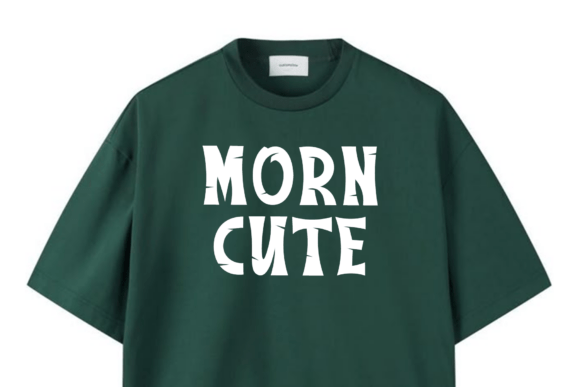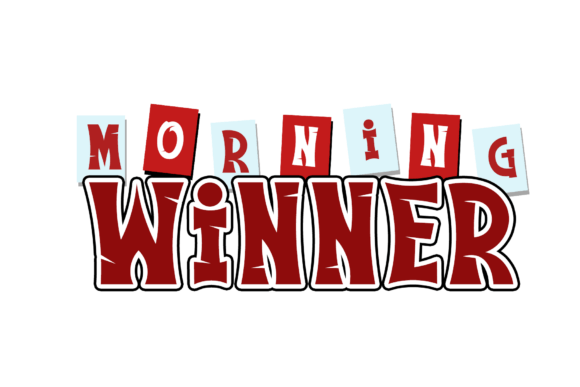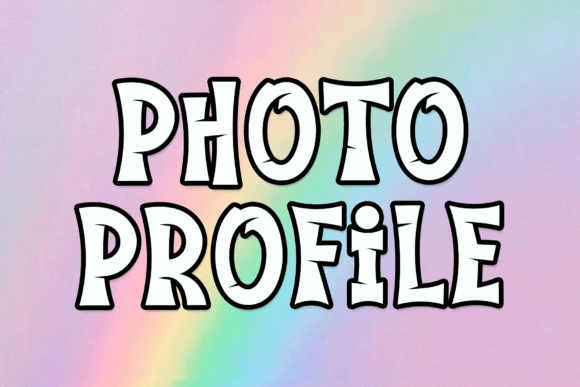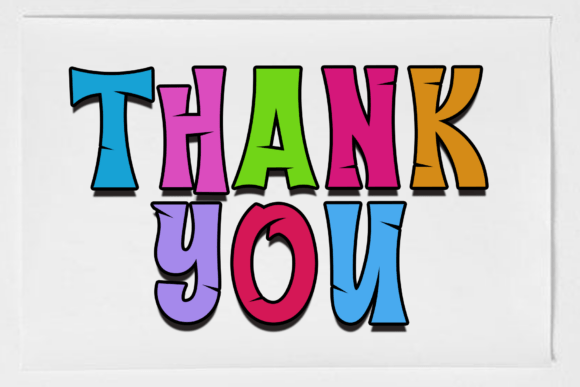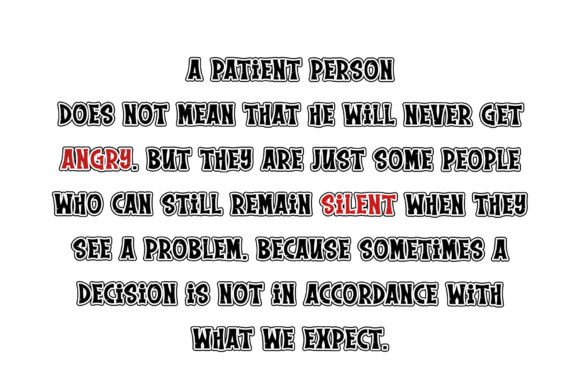
Introducing Animation Font: The Timeless Handwritten Font for Stunning Designs
Are you a designer or crafter looking for the perfect font to elevate your creative projects? Look no further than Animation Font, a lovely and timeless handwritten font that is sure to capture the attention of your audience. With its unique and beautiful touch, Animation Font is the ideal choice for creating eye-catching logos, branding, and quotes that will make your design come alive!
The Characteristics of Animation Font
Animation Font is a handwritten font that boasts a distinctive and charming style. Each letter has been carefully crafted to possess a unique and beautiful touch, making it perfect for designers who want to add a personal touch to their work. The font’s handwritten nature gives it a warm and inviting feel, making it perfect for a wide range of design applications, from logos and branding to quotes and social media graphics.
The Benefits of Using Animation Font
So, why choose Animation Font for your design projects? Here are just a few benefits of using this stunning font:
- Elegant and Sophisticated: Animation Font has an elegant and sophisticated feel that will elevate your designs and make them stand out from the crowd.
- Unique and Creative: With its unique and beautiful touch, Animation Font is perfect for designers who want to add a creative and personal touch to their work.
- Versatile: Animation Font is versatile and can be used for a wide range of design applications, from logos and branding to quotes and social media graphics.
- Easy to Read: Despite its decorative nature, Animation Font is easy to read and understand, making it perfect for use in body text and captions.
How to Use Animation Font in Your Designs
Using Animation Font in your designs is easy. Here are a few tips to get you started:
- Pair it with Other Fonts: Animation Font pairs well with other fonts, making it easy to create stunning font combinations that will elevate your designs.
- Experiment with Colors: Animation Font looks great in a variety of colors, so don’t be afraid to experiment and find the perfect color scheme for your design.
- Use it for Headings and Titles: Animation Font is perfect for use in headings and titles, where its decorative nature can really shine.
Why Designers and Crafters Love Animation Font
Designers and crafters love Animation Font for a variety of reasons. Here are just a few:
- It Adds a Personal Touch: Animation Font adds a personal touch to designs, making them feel more unique and special.
- It’s Easy to Use: Animation Font is easy to use, even for designers who are new to working with handwritten fonts.
- It’s Versatile: Animation Font can be used for a wide range of design applications, making it a great addition to any designer’s toolkit.
Whether you’re a seasoned designer or just starting out, Animation Font is a great choice for any design project. Its timeless nature ensures that it will remain stylish and relevant for years to come, making it a great investment for any designer or crafter.